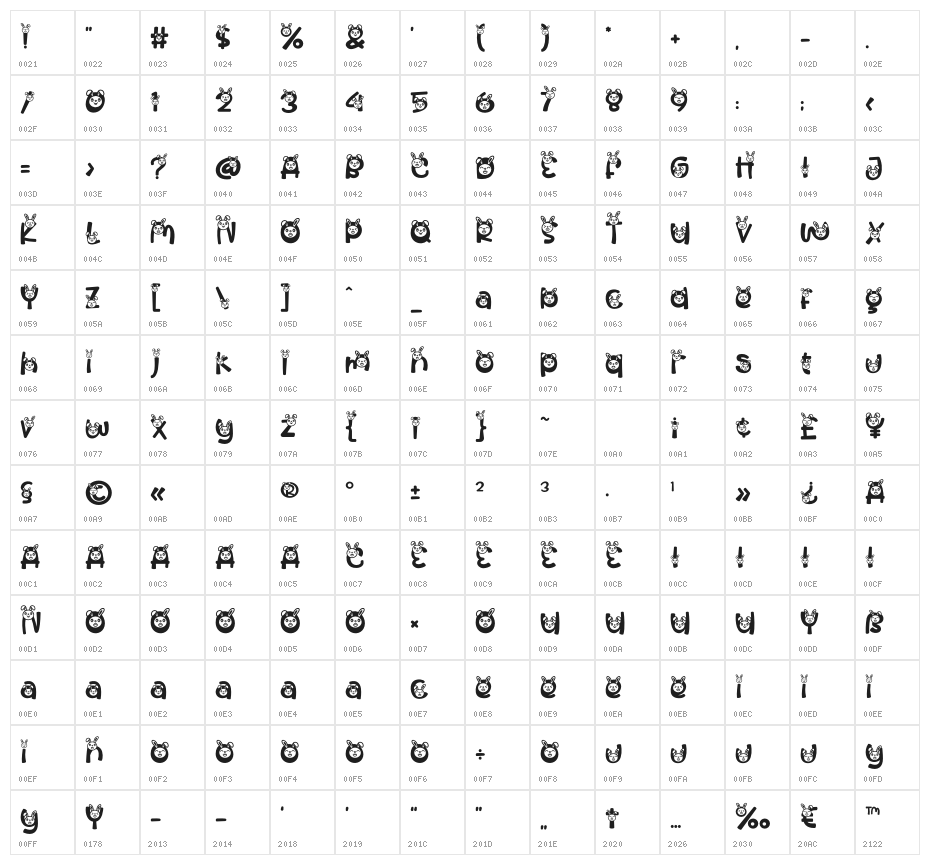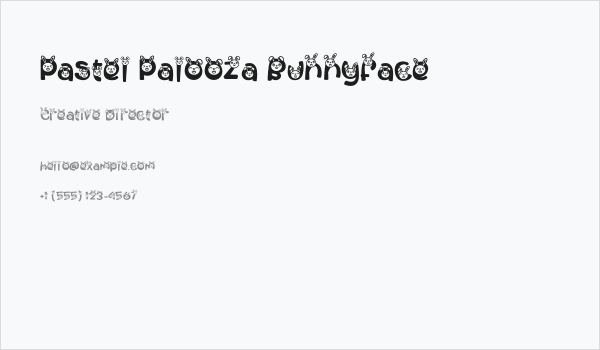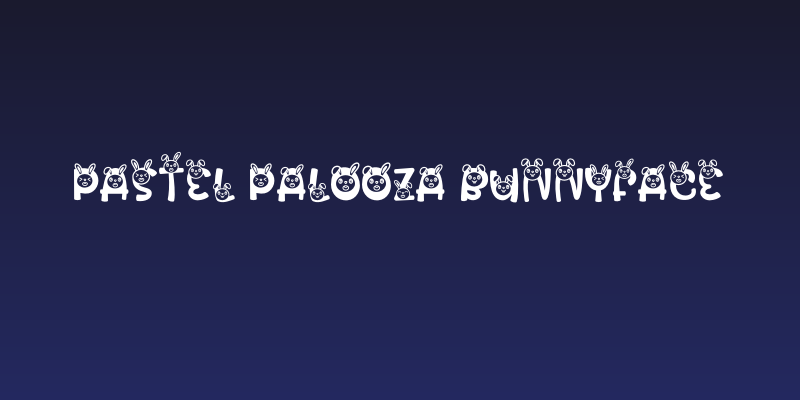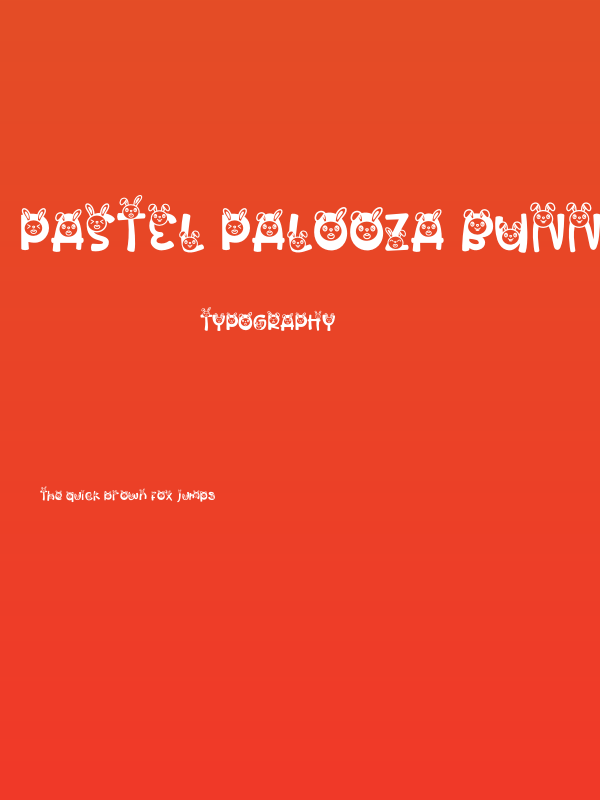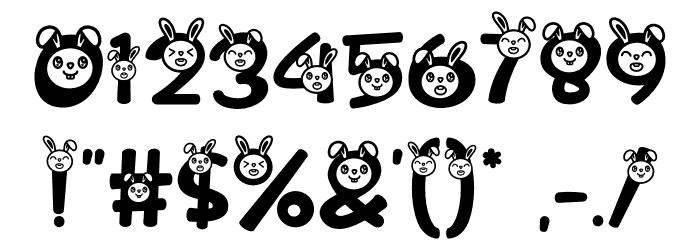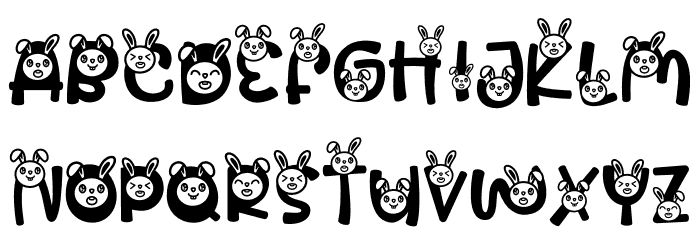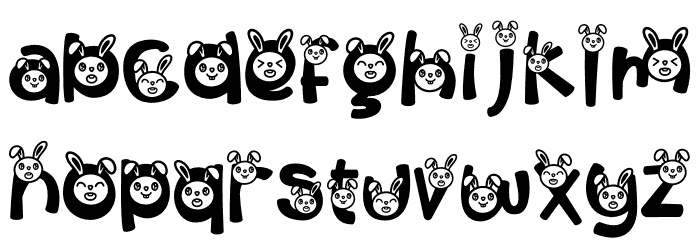
Pastel Palooza BunnyFace Font
Pastel Palooza BunnyFace Description
This playful and whimsical font features each character adorned with a charming bunny face, complete with ears and expressive eyes. The letters are bold and rounded, creating a friendly and approachable aesthetic. The inclusion of bunny faces adds a unique and decorative element, making the font stand out for creative and fun projects. The numbers and special characters also follow this theme, maintaining consistency across the entire set. This font is ideal for children's materials, playful branding, or any project that requires a touch of cuteness and creativity.